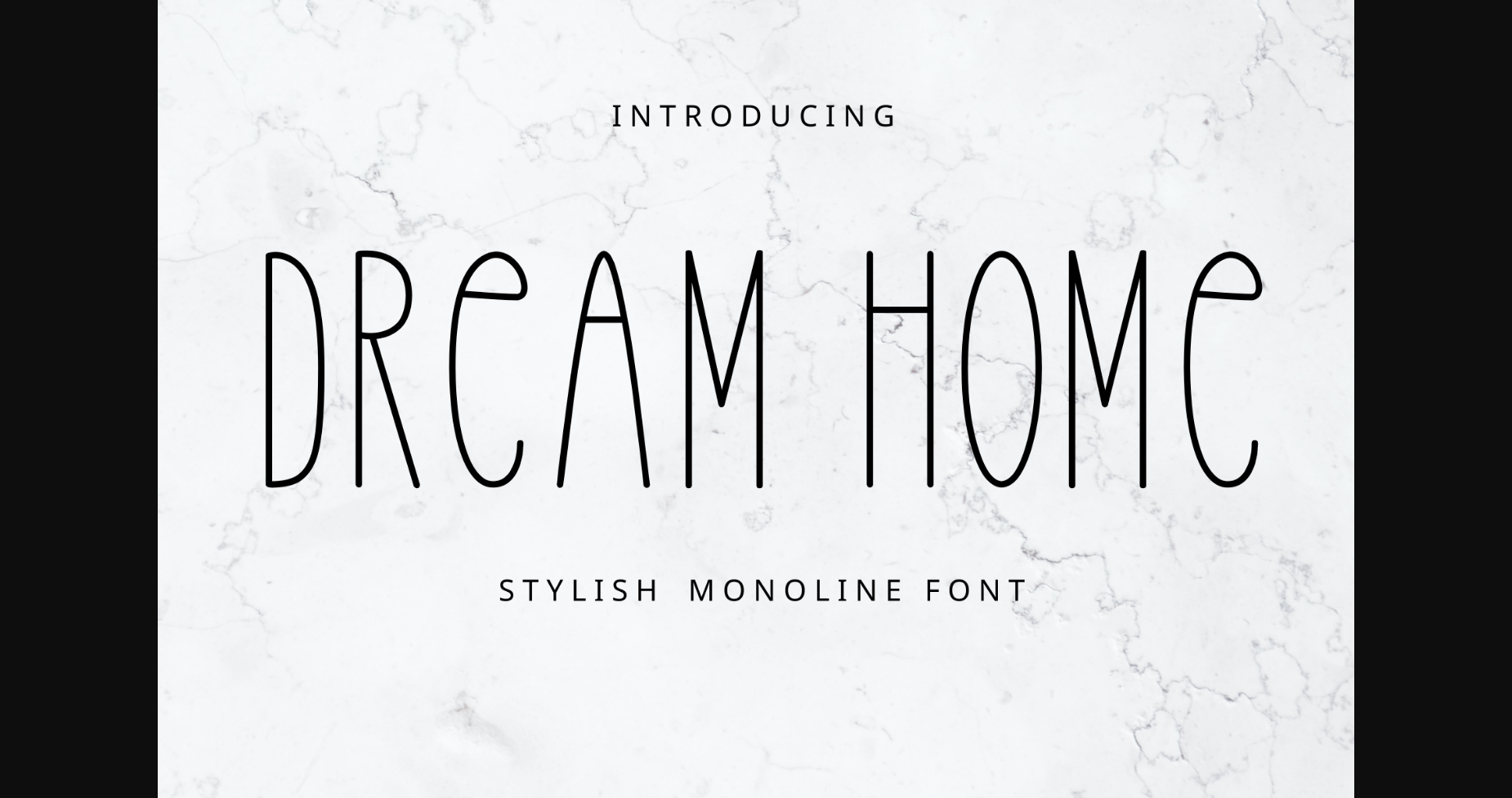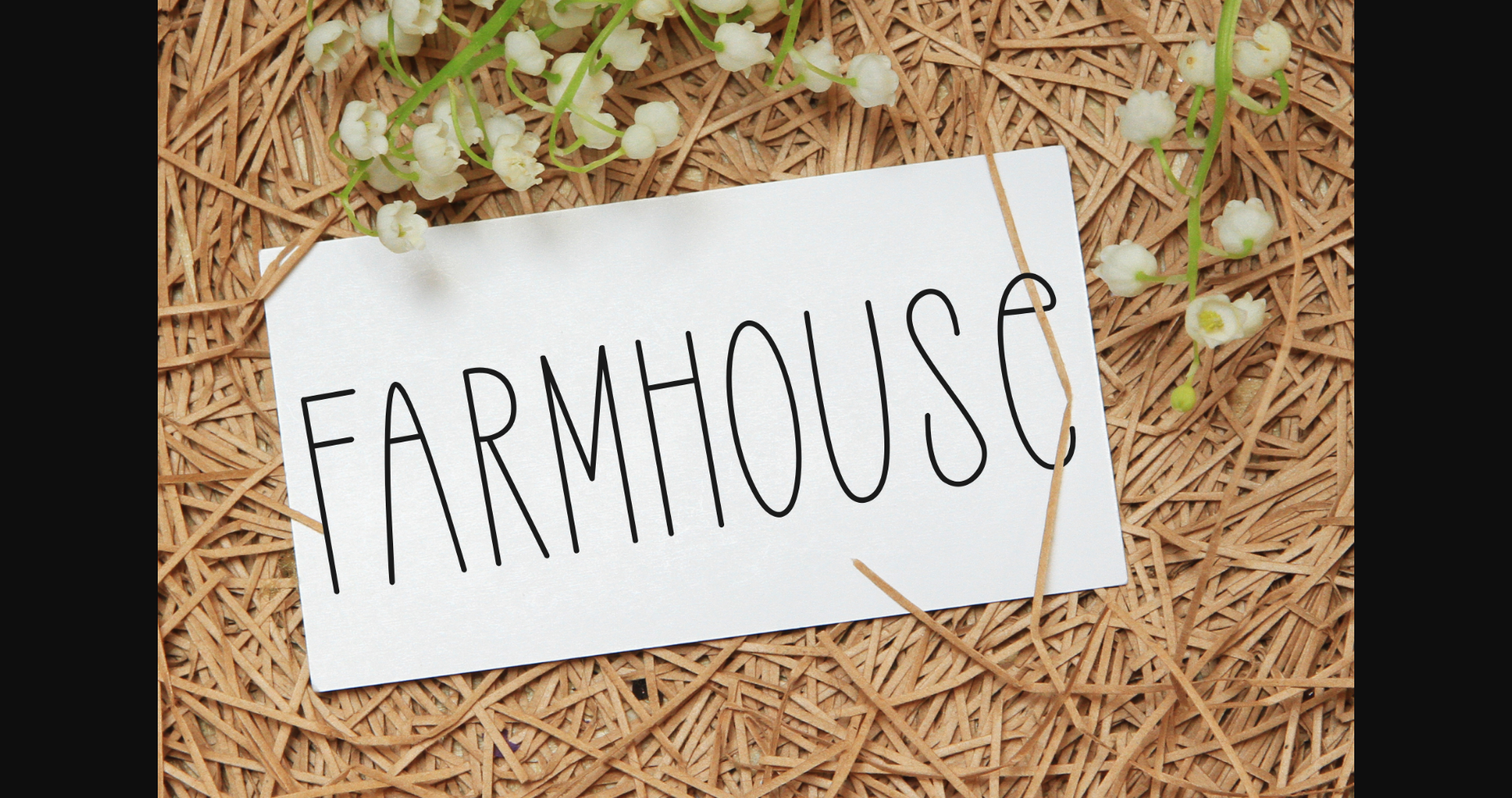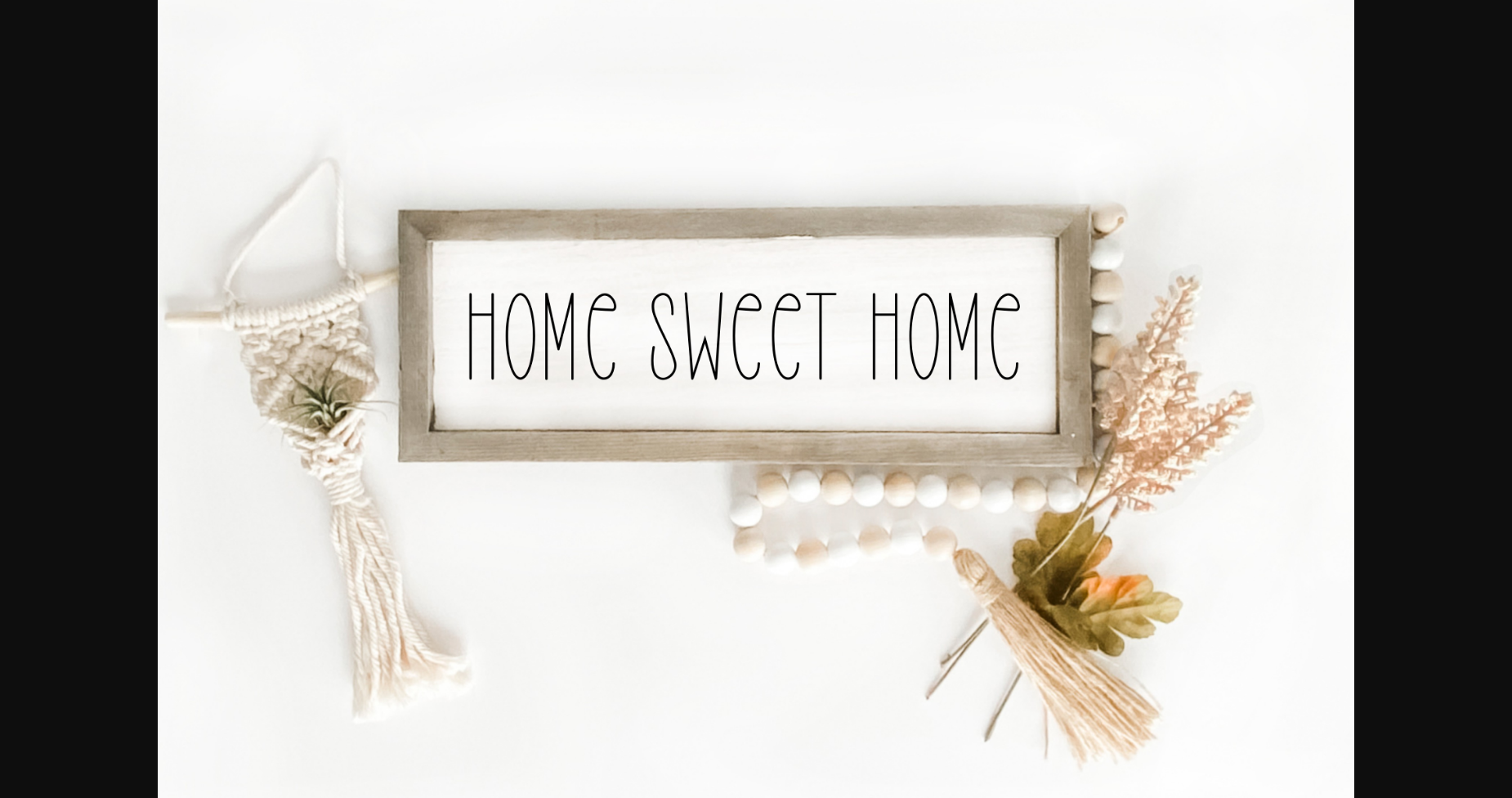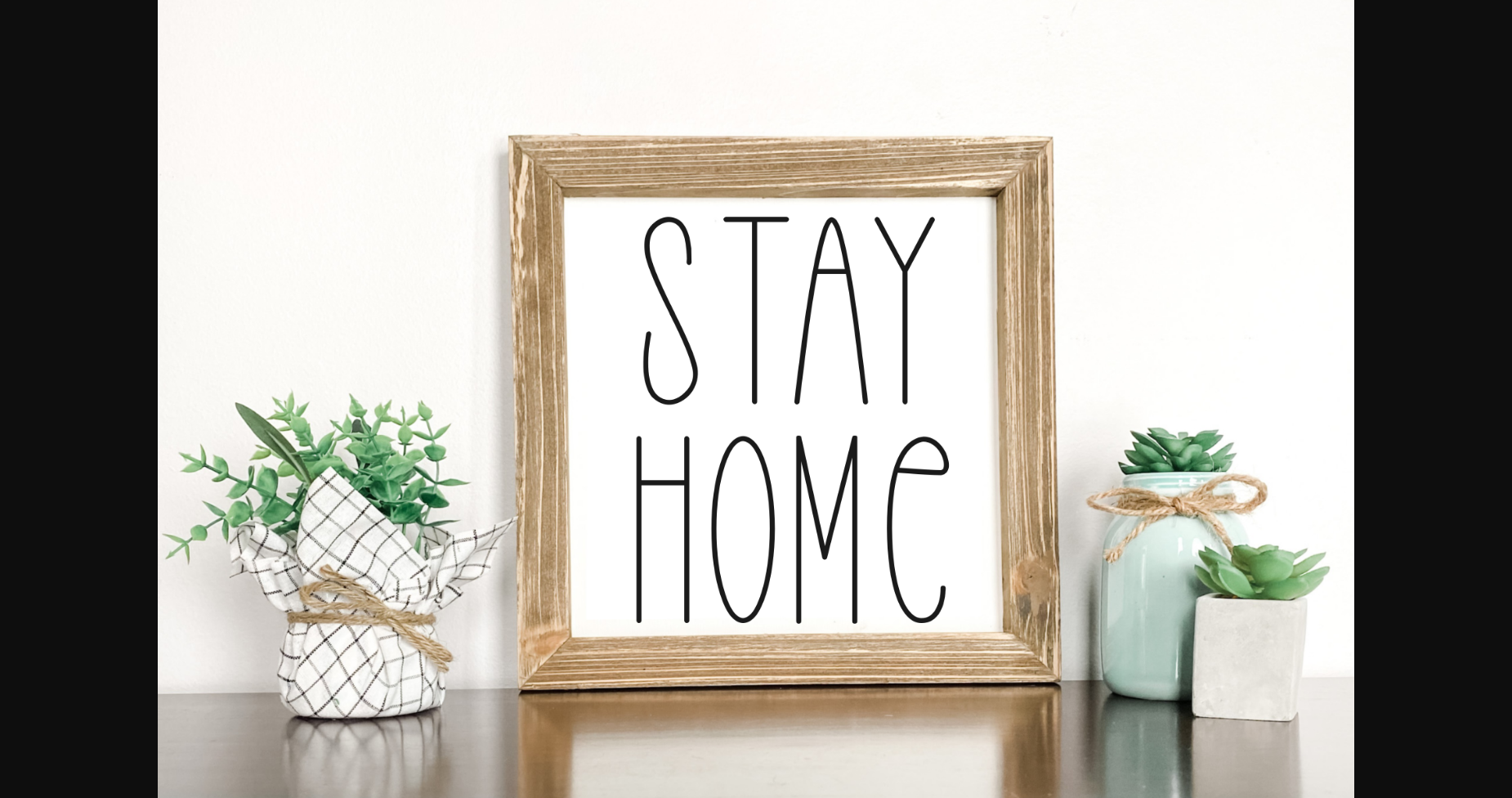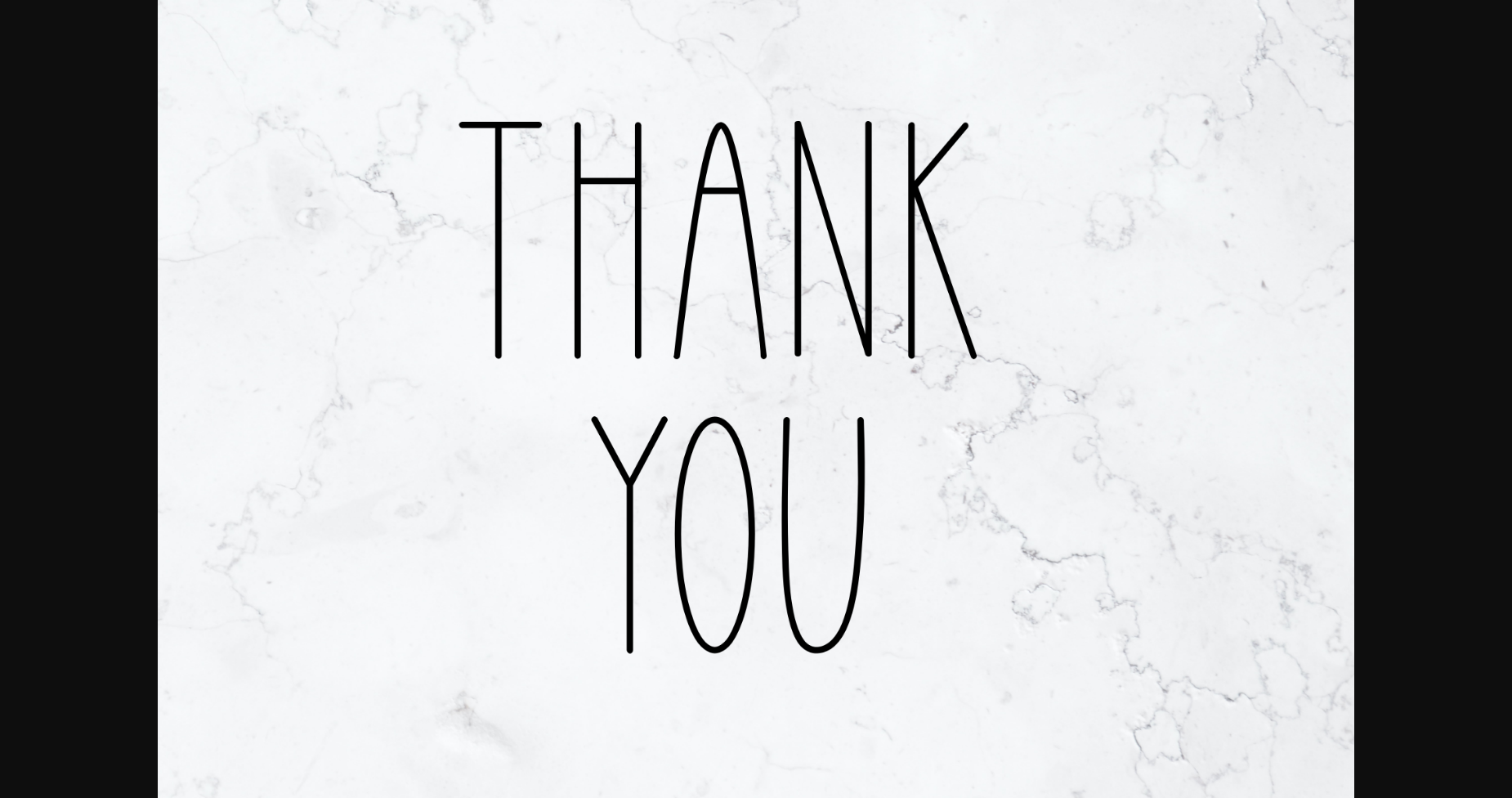
Dream Home Font
About Dream Home Font
Dream Home is a simple and thin lettered sans serif font. Dainty and joyful, this font will be ideal for crafts, from vinyl stickers to labels, t-shirts, and more!